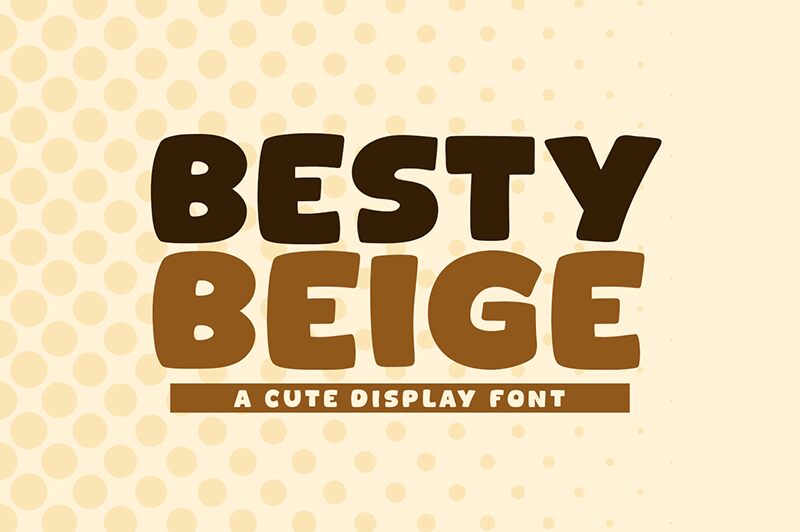
Besty Beige font by Khurasan is a bubbly, cartoon display font with an inviting, youthful feel. The expanded and rounded characters have just the right amount of retro flair which adds to the overall uniqueness and friendliness. Besty Beige is a free expanded width font fit for stylish typography in titles or short body text.
Use the exaggerated letters to your advantage in headings of magazines, books, or posters. Fashion branding, packagings of any kind especially food ones will be irresistible with this addition to your arsenal. Keep it simple but effective with logotypes and business cards related to playful industries.
Besty Beige